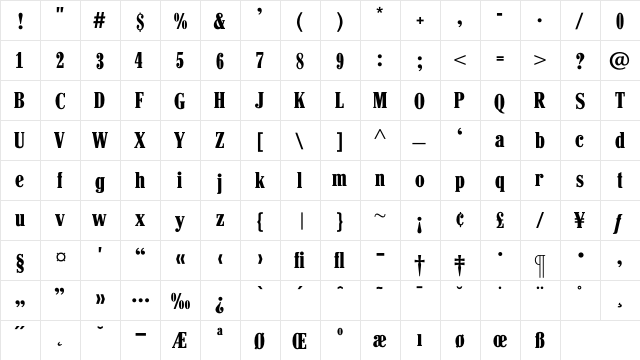
HancockBoldCondensed Regular Font Preview
Design Context for HancockBoldCondensed Typeface
HancockBoldCondensed offers clean, dependable letterforms without strong stylistic allegiance, making it a practical choice for designers who need flexibility. The heavy weight commands attention and anchors typographic hierarchies. Its narrow stance lets it pack a punch even in space-constrained designs.